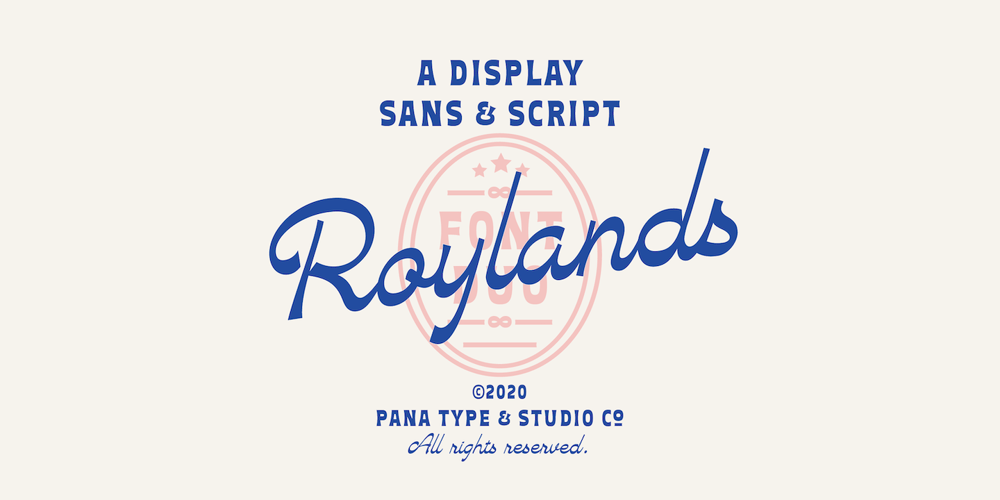
Roylands Font Duo Font Family was designed by Ajusia and published by Panatype Studio. Roylands Font Duo contains 2 styles and family package options. Royland Font Duo is a mathing pair of fonts, inspired by a simple yet elegant vintage graphic design, carefully crafted, and opentype features to support is perfect for graphic design needs.